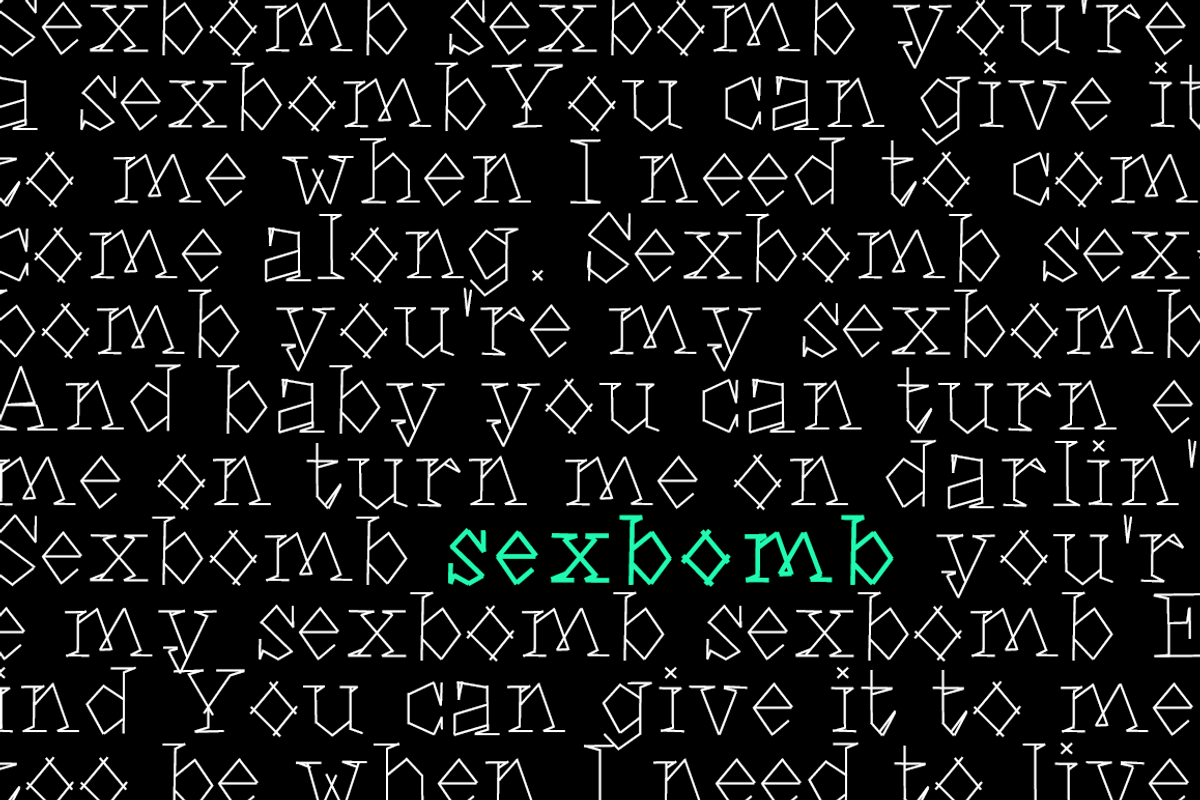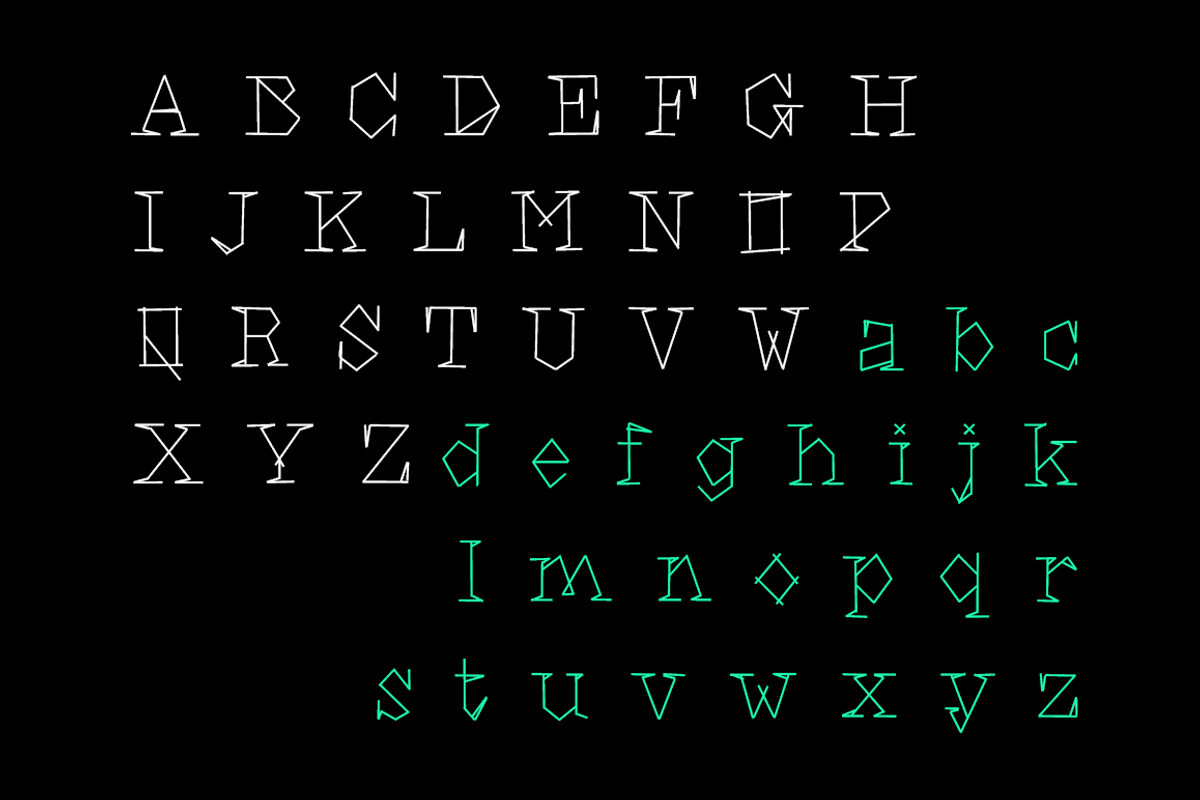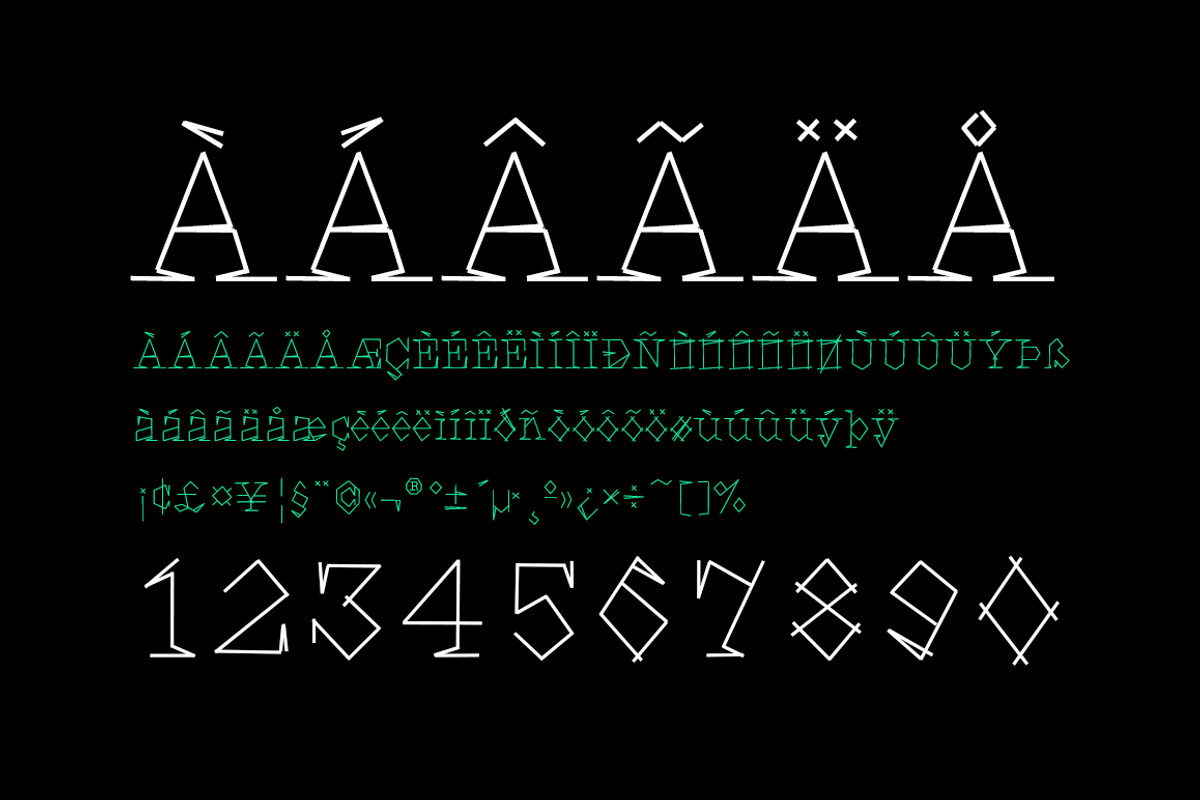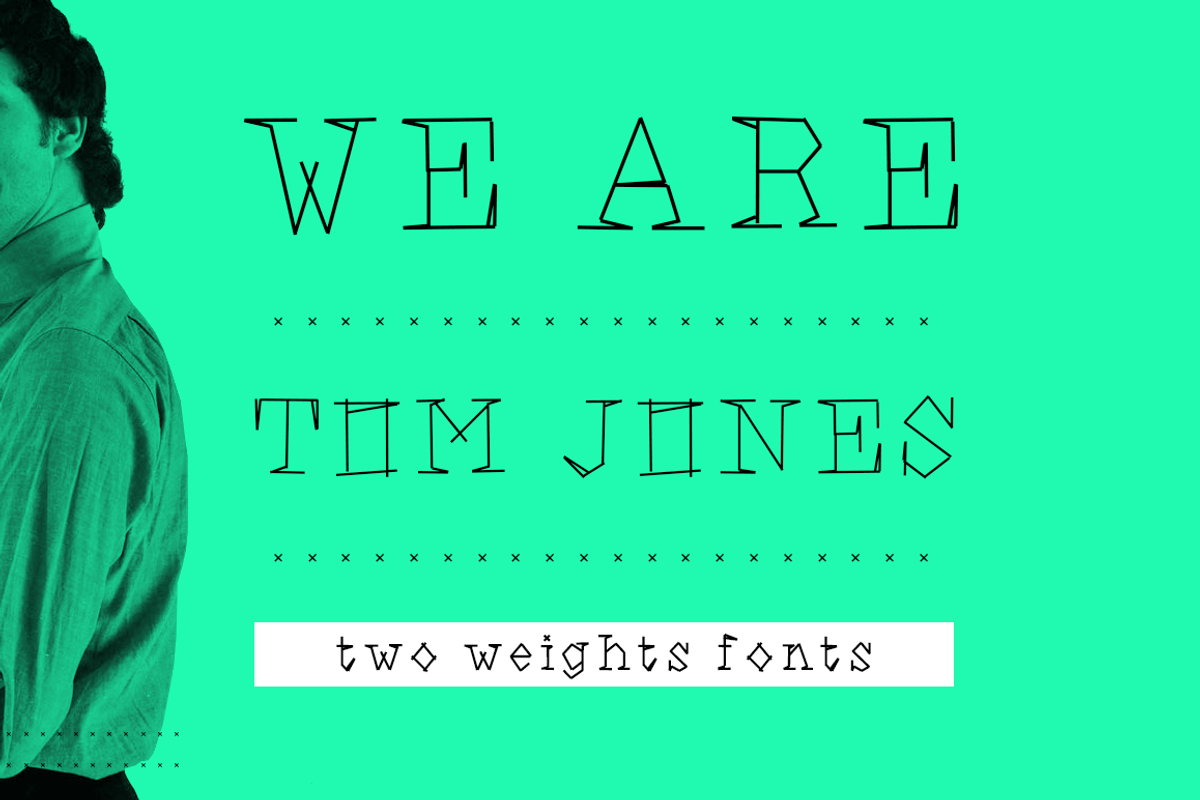
We are Ton Jones - font.
We are Ton Jones - font. by David is Creative is a font selected for branding, posters, packaging, typography.
- UPPERCASE lowercase Numerals Punctuation & special.
Why We are Ton Jones - font. is worth a look
We are Ton Jones - font. by David is Creative fits naturally into Branding, posters, packaging, typography.